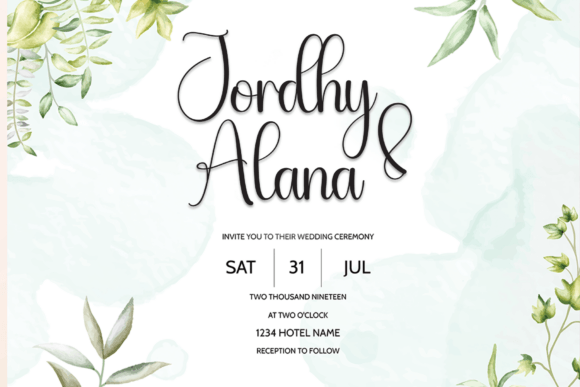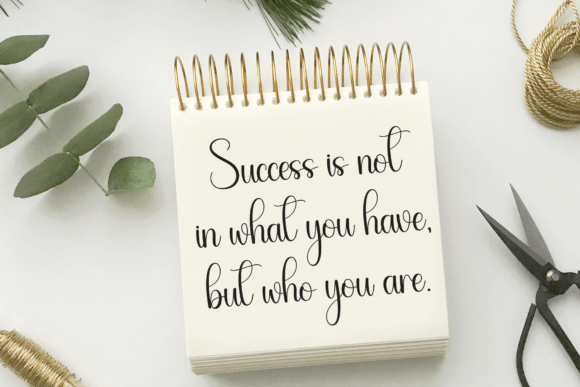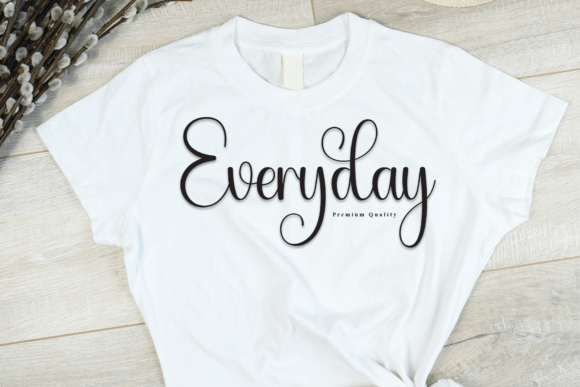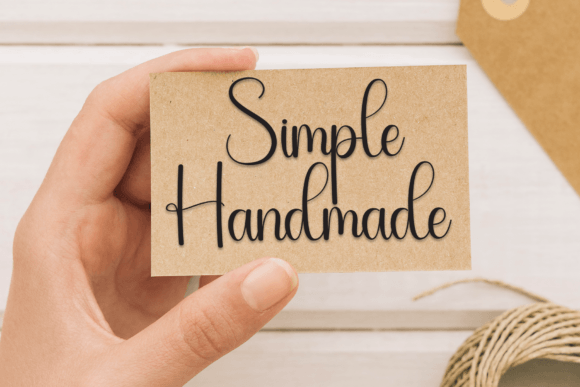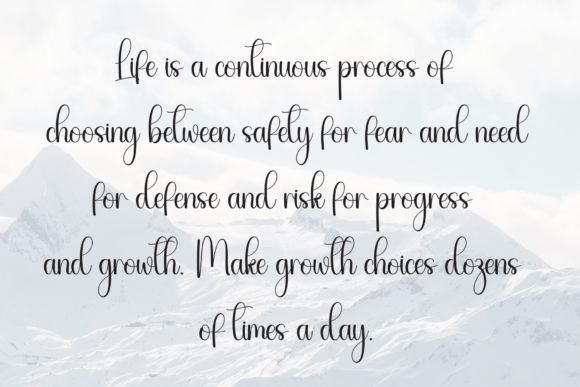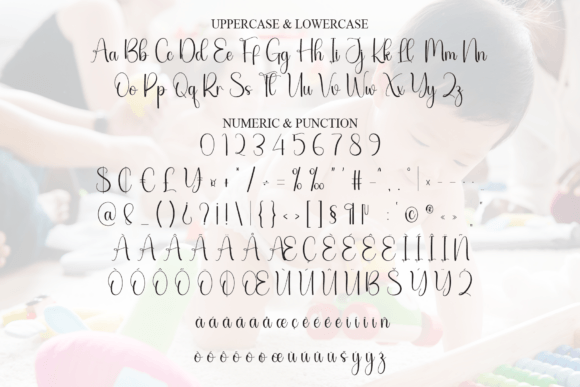
Meet the Perfect Font for Little Ones: Baby School Font
Have you ever stumbled upon the perfect font that makes your design feel like a warm hug? For me, that font is Baby School Font – a delightful, handwritten font that brings a smile to my face every time I see it. Whether I’m designing a children’s book or creating a birthday invitation for a little one, Baby School Font is always my go-to choice.
With its soft, friendly letters and playful flourishes, Baby School Font is designed to evoke a sense of warmth and cheerfulness. Its purpose is to make designs feel approachable and fun, making it perfect for projects that need a little extra personality. For designers, Baby School Font is a valuable tool in their creative arsenal, offering a unique and engaging way to connect with their audience.
Baby School Font Key Features
- Font Style: A playful, child-friendly font designed for educational purposes.
- Unique Characteristics: The font features rounded shapes, soft edges, and a subtle texture, creating a friendly and approachable atmosphere.
Baby School Font Review
At first glance, Baby School Font seems like a cute and playful addition to any design project. ✨ The rounded edges and childlike feel make it perfect for educational materials, nursery decor, or any design that requires a touch of whimsy. The font comes in a range of styles, including bold and italic options, which can be useful for creating visual hierarchy in a design.
One of the standout features of Baby School Font is its versatility. ✨ It can be used for both digital and print designs, and its large character set makes it suitable for a variety of languages. The font also includes a range of punctuation and symbol options, which can be useful for creating a cohesive look in a design.
However, there are some limitations to consider. ⚠️ The font may not be suitable for more formal or professional designs, as its playful feel can come across as unprofessional. Additionally, some users may find the font’s rounded edges to be a bit too childish or cursive-like. ⚠️
Overall Impression: Baby School Font is a fun and versatile font that can add a touch of personality to any design project. While it may not be suitable for every design, it’s a great option for those looking for a playful and childlike feel.
- Perfect for educational materials and nursery decor
- Comes in a range of styles, including bold and italic options
- Includes a large character set and a range of punctuation and symbol options
- May not be suitable for formal or professional designs
- Some users may find the font’s rounded edges to be too childish or cursive-like
Baby School Font is commonly used for:
– Children’s party invitations and decorations
– Nursery and kindergarten branding
– Educational materials and worksheets
– Baby shower invitations and decorations
To get the most out of Baby School Font, try pairing it with bold and colorful graphics, and use it in conjunction with other playful fonts to create a cohesive and engaging design.